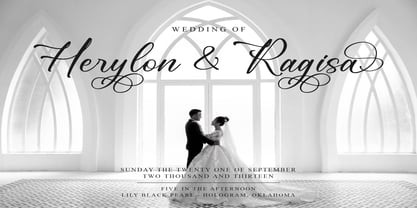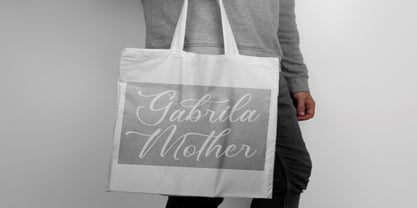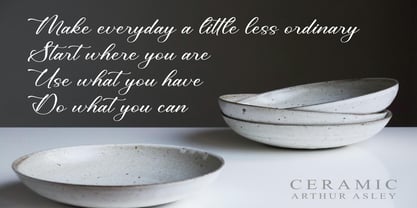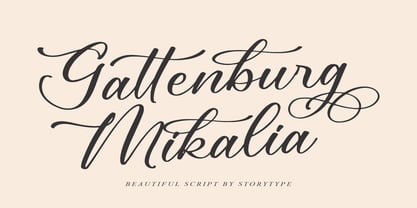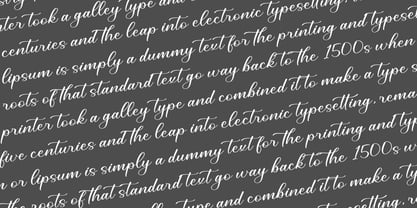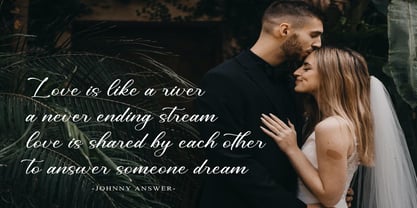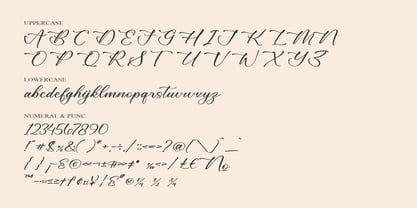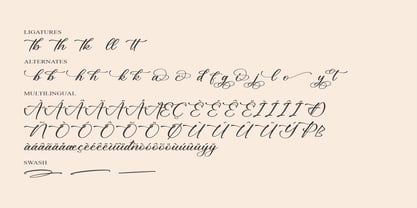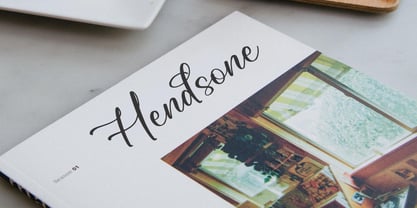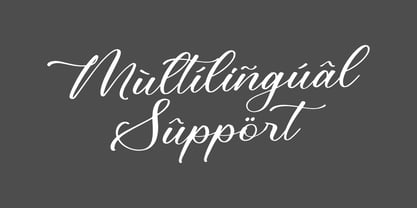
Gattenburg Mikalia
Gattenburg Mikalia is a beautiful script font with an elegant style and modern look.
This typeface is perfect for an elegant & luxury logo, book or movie title design, fashion brand, magazine, clothes, lettering, quotes, and so much more.